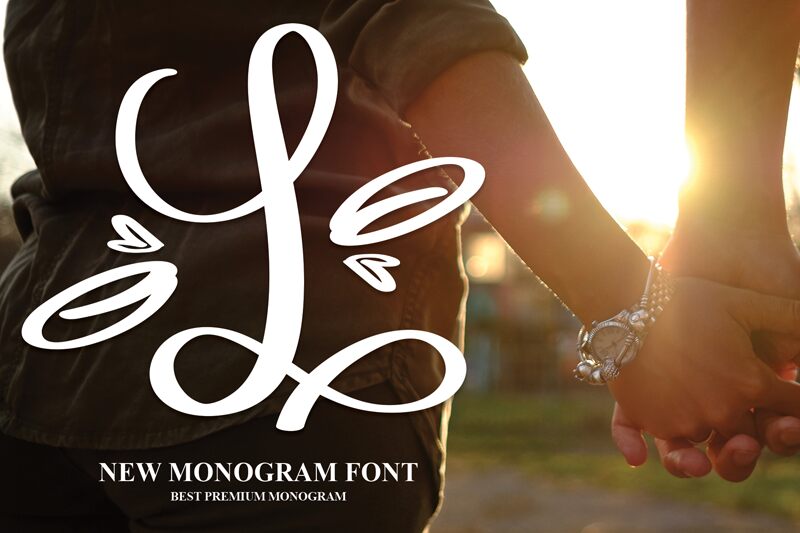
Monogram L
Monogram L, designed by Scratchones, is a captivating display font that is perfect for adding a touch of elegance to your design projects.
With its decorative and monogram style, this font is ideal for creating personalized logos, wedding invitations, and stylish branding materials. The semi-light weight of Monogram L adds a delicate and refined feel to any design, making it suitable for fashion magazines, luxury brands, and high-end packaging.
Stand out from the crowd with Monogram L and add a sophisticated flair to your next creative endeavor.
With its decorative and monogram style, this font is ideal for creating personalized logos, wedding invitations, and stylish branding materials. The semi-light weight of Monogram L adds a delicate and refined feel to any design, making it suitable for fashion magazines, luxury brands, and high-end packaging.
Stand out from the crowd with Monogram L and add a sophisticated flair to your next creative endeavor.